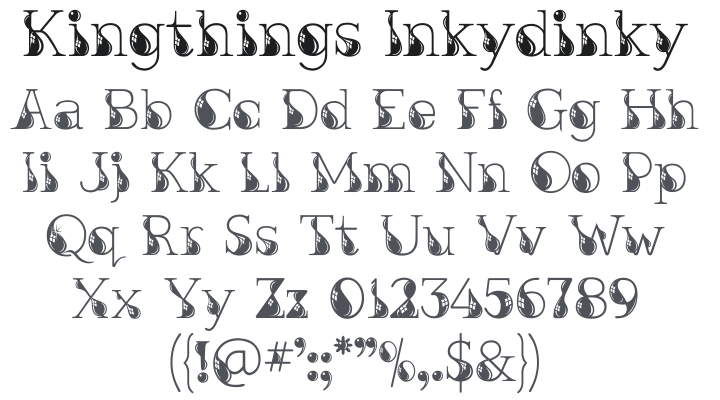
Kingthings Inkydinky Font
About Kingthings Inkydinky
I am making a font called Kingthings Serifique (well, that's what it's called this morning) - I got side tracked - again! I was filling and testing fountain pens for the Charity Shop in which I work... Mother always said I'm a filthy Herbert. Doesn't a little Ink go a long way?